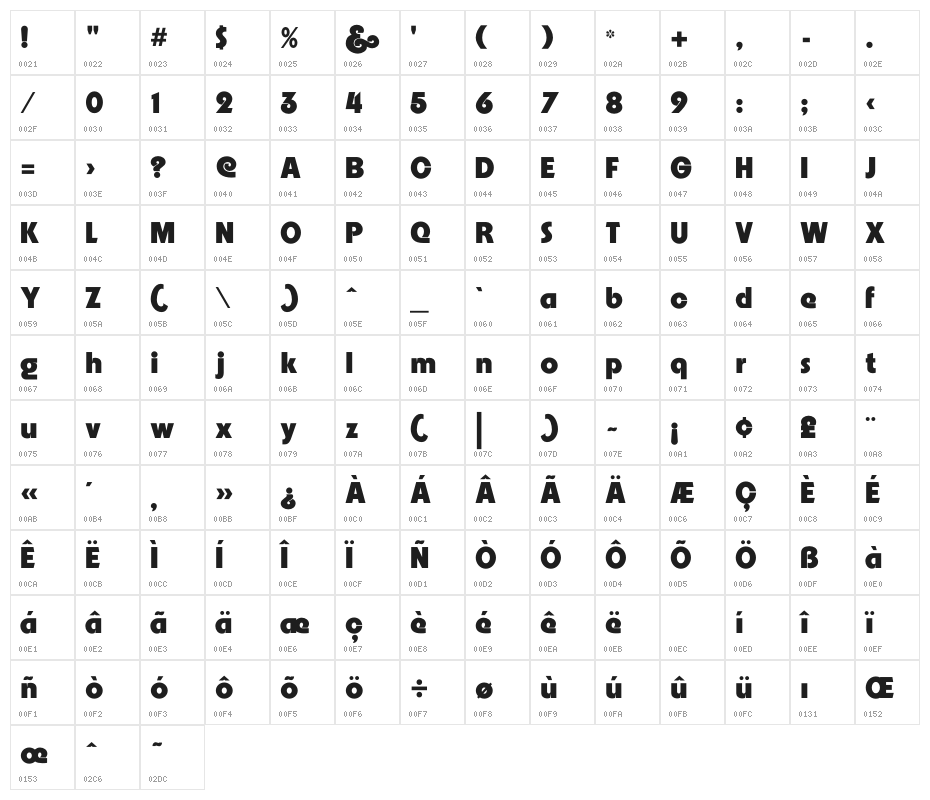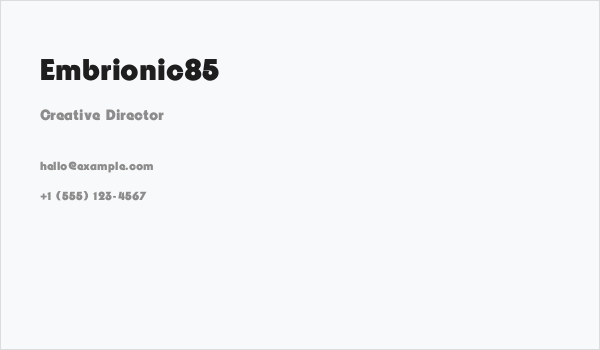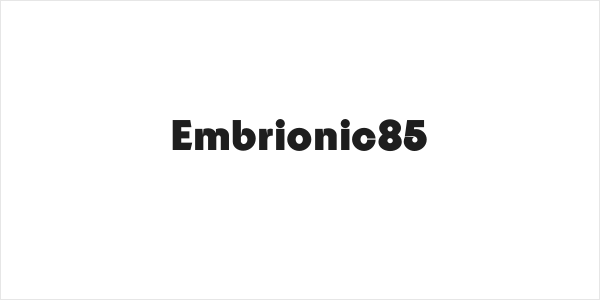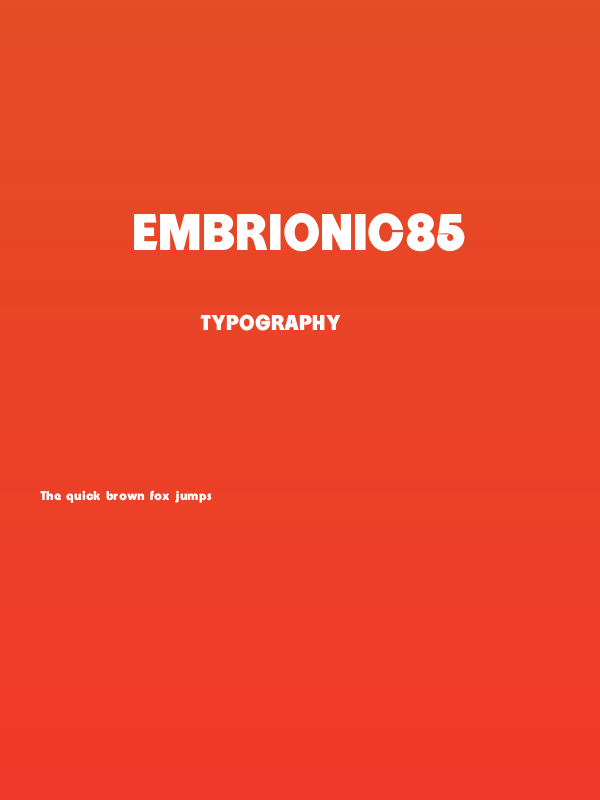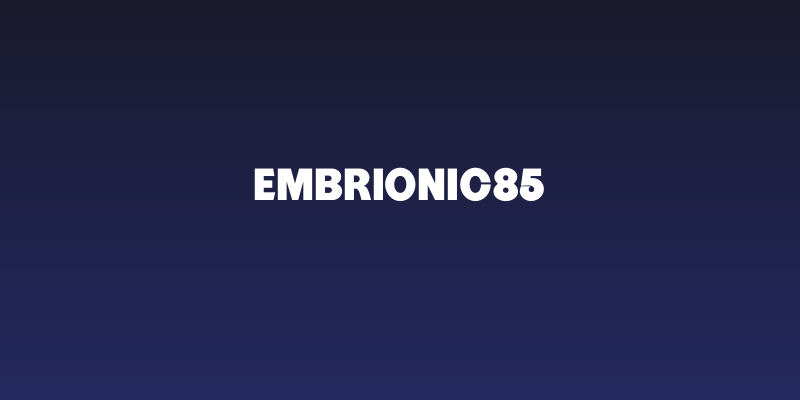
Embrionic85 Font
Embrionic85 Description
This bold and striking font features a strong geometric structure with thick, uniform strokes that create a powerful visual impact. The uppercase and lowercase letters maintain a consistent weight, contributing to a cohesive and balanced appearance. The numerals are equally bold, ensuring readability and emphasis. Special characters are designed with the same boldness, making them stand out effectively. The font's overall style is modern and assertive, making it suitable for projects that require a strong visual presence.
| Proposed Projects | Ideal for headlines, posters, branding, and advertising where a strong visual impact is desired. |